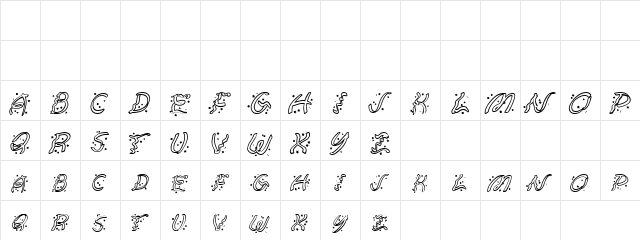
Ribbonny Type Regular
Ribbonny Type is a composed and adaptable typeface that performs quietly and consistently across a wide range of design contexts.